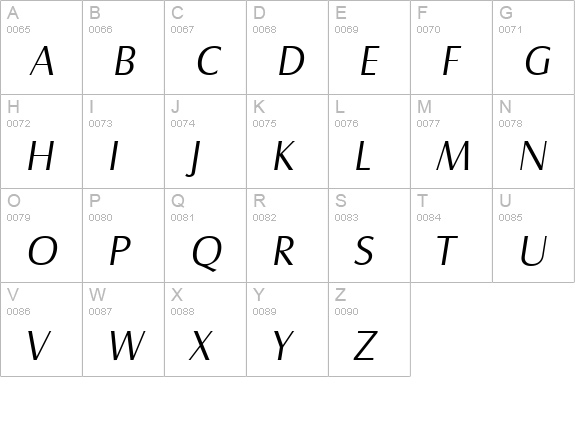
SalzburgSerial-Light-Italic is a refined, elegant, italic variant in the SalzburgSerial typeface family \xE2\x80\x94 well suited to elegant body text, refined sub-headings, and luxury branding.
SalzburgSerial-Light-Italic font exudes elegance and sophistication with its slender, italic design. This font is perfect for adding a touch of modern flair to any project, whether it be a website, invitation, or branding material. The delicate curves and precise letterforms of SalzburgSerial-Light-Italic lend a sense of refinement and style to your text. What's even better is that this stunning font is available for free download at FontsMarket.com. Now you can elevate your designs with this exquisite typeface without having to worry about breaking the bank. Don't miss out on the opportunity to add SalzburgSerial-Light-Italic to your font collection today and see the difference it can make in your creative projects.